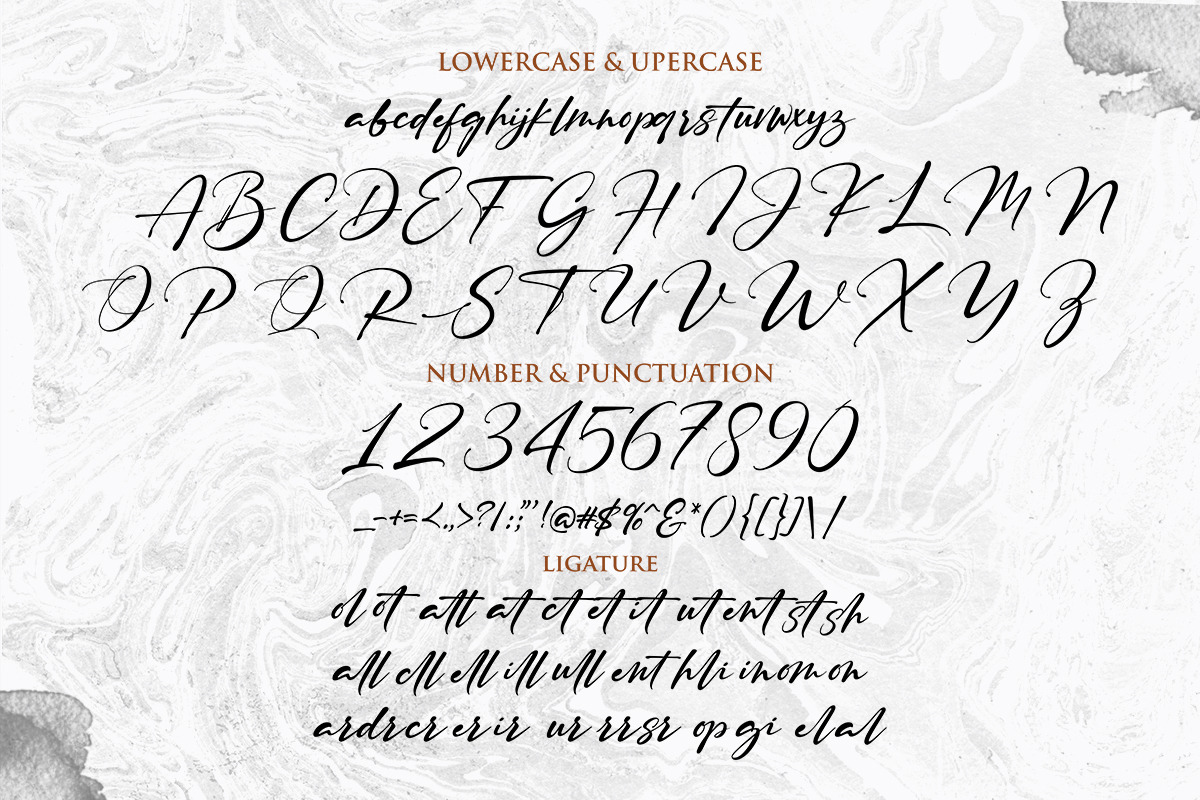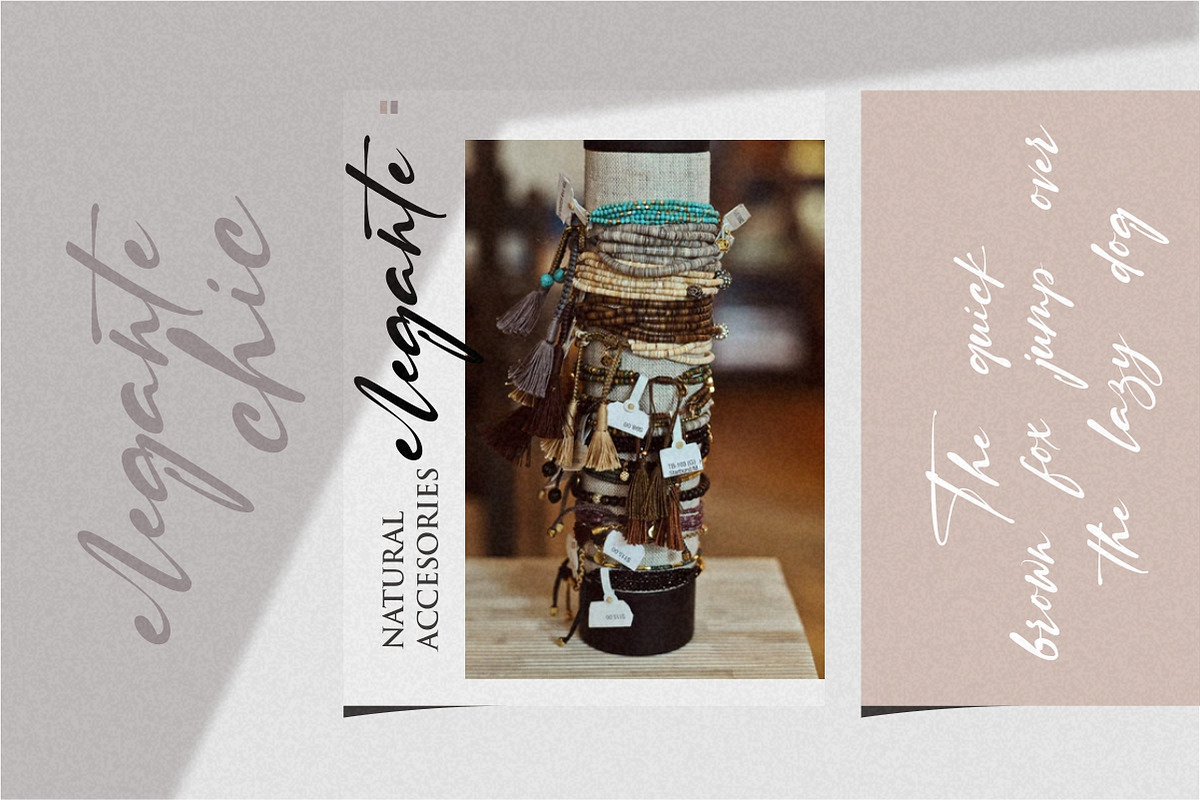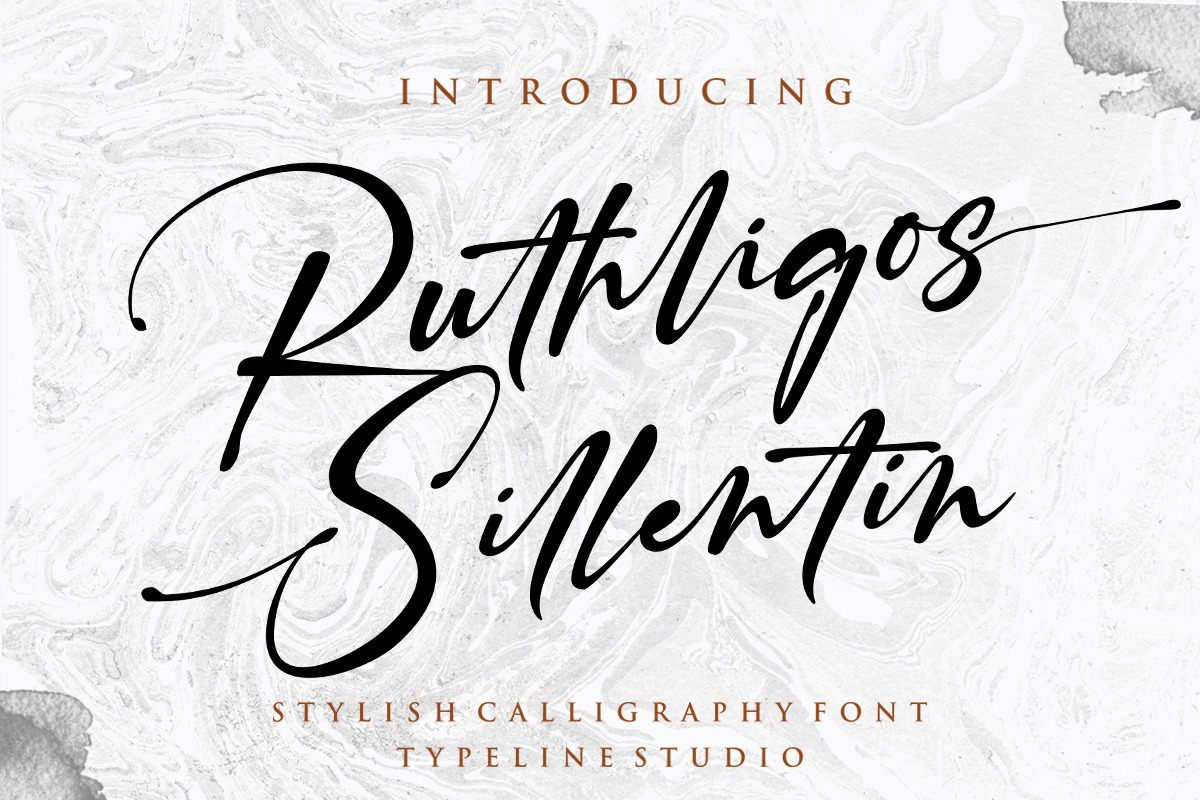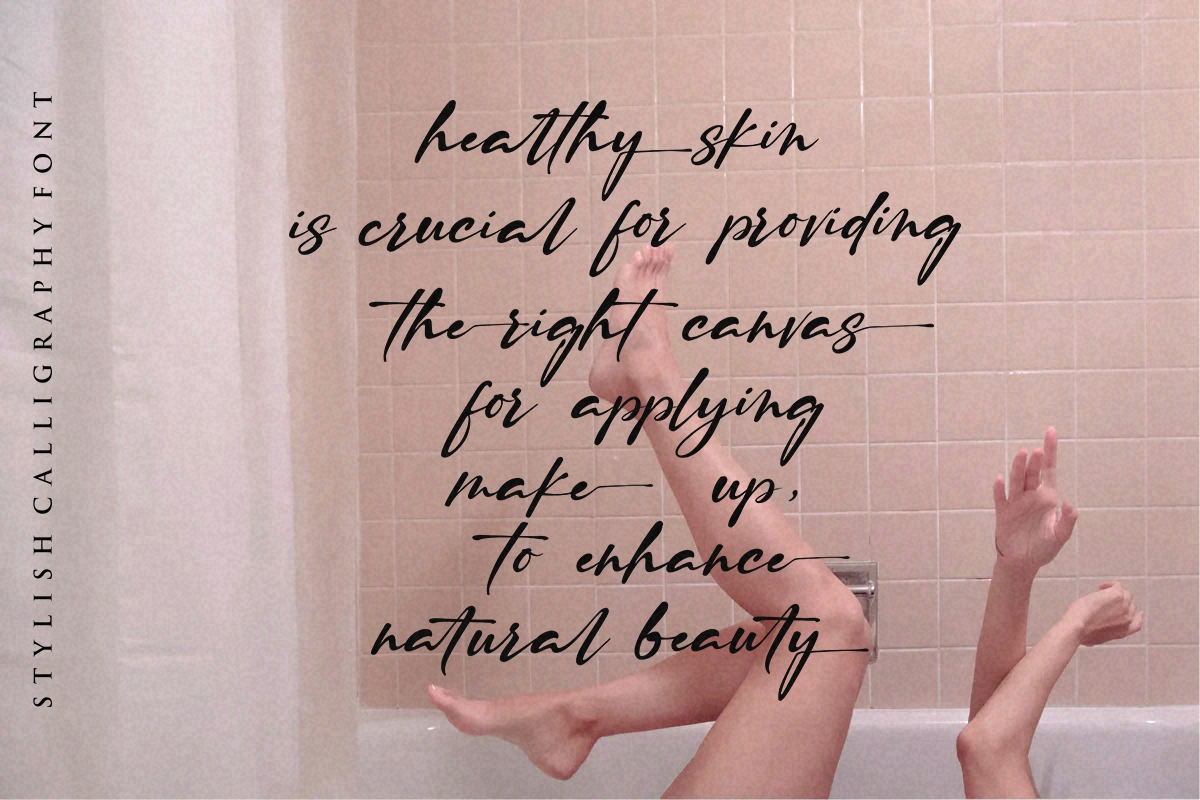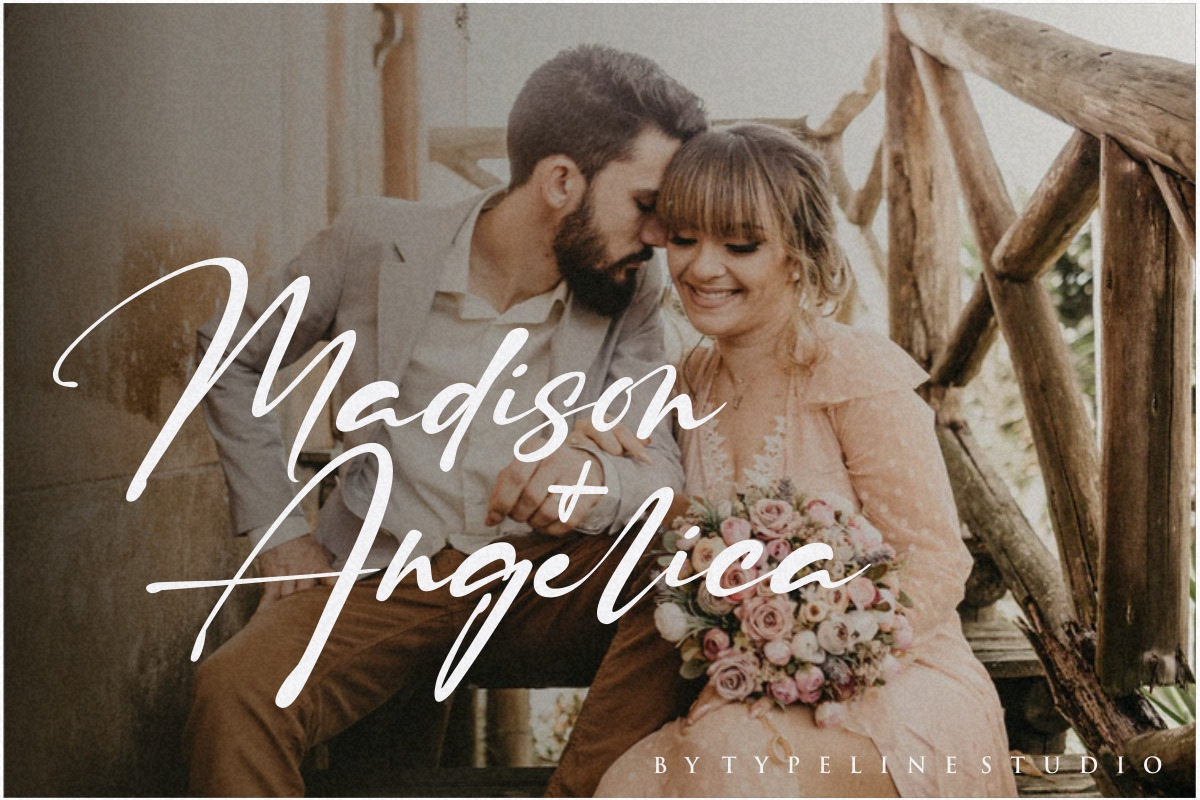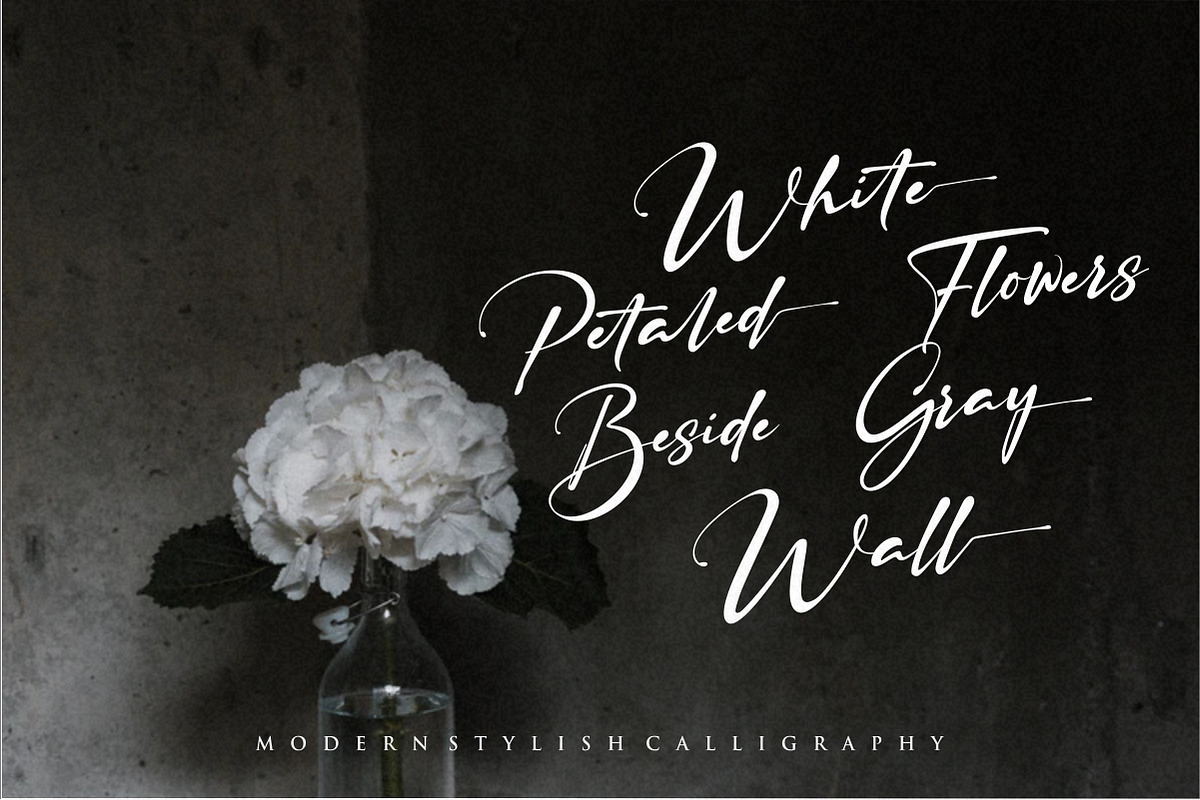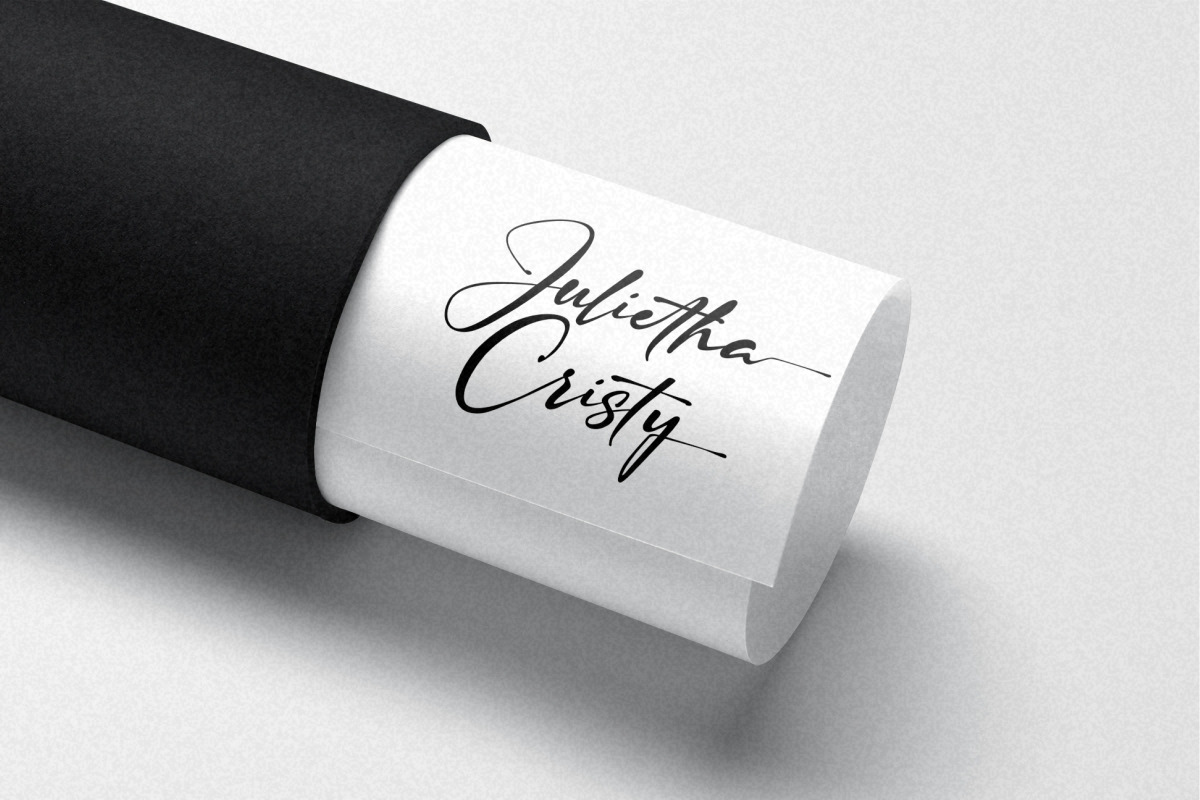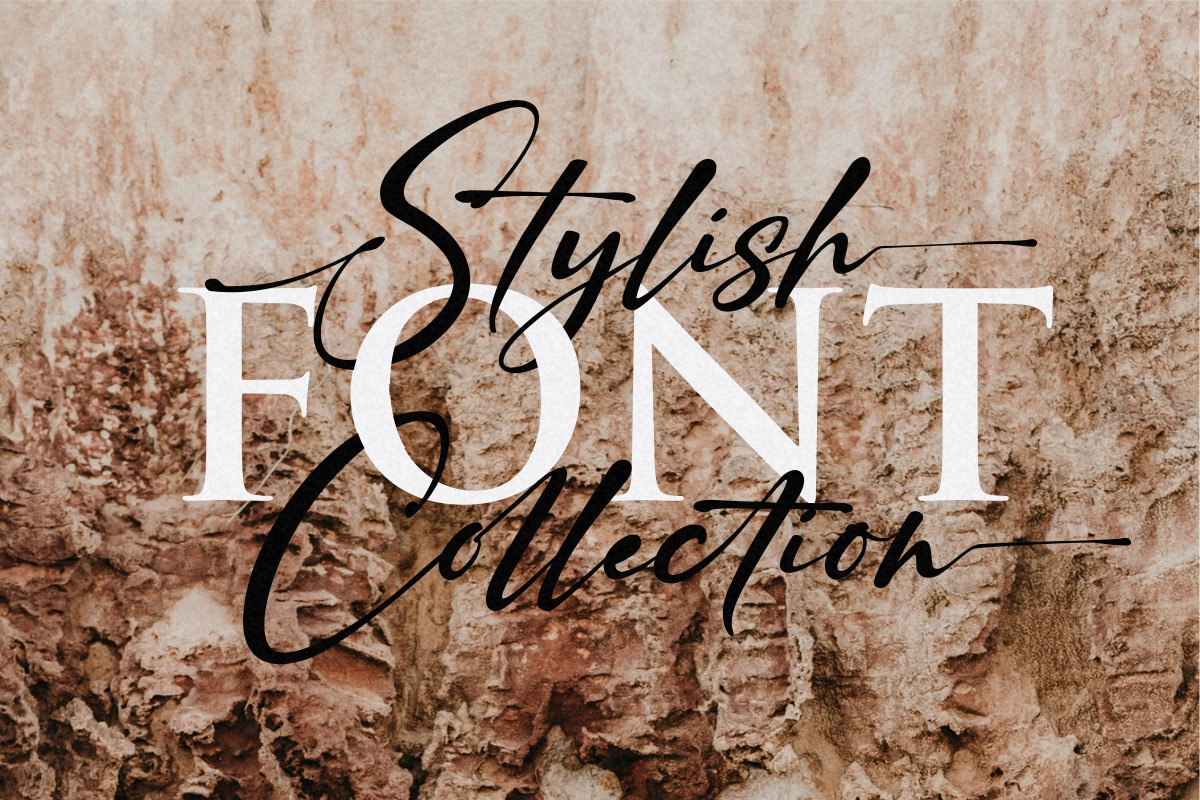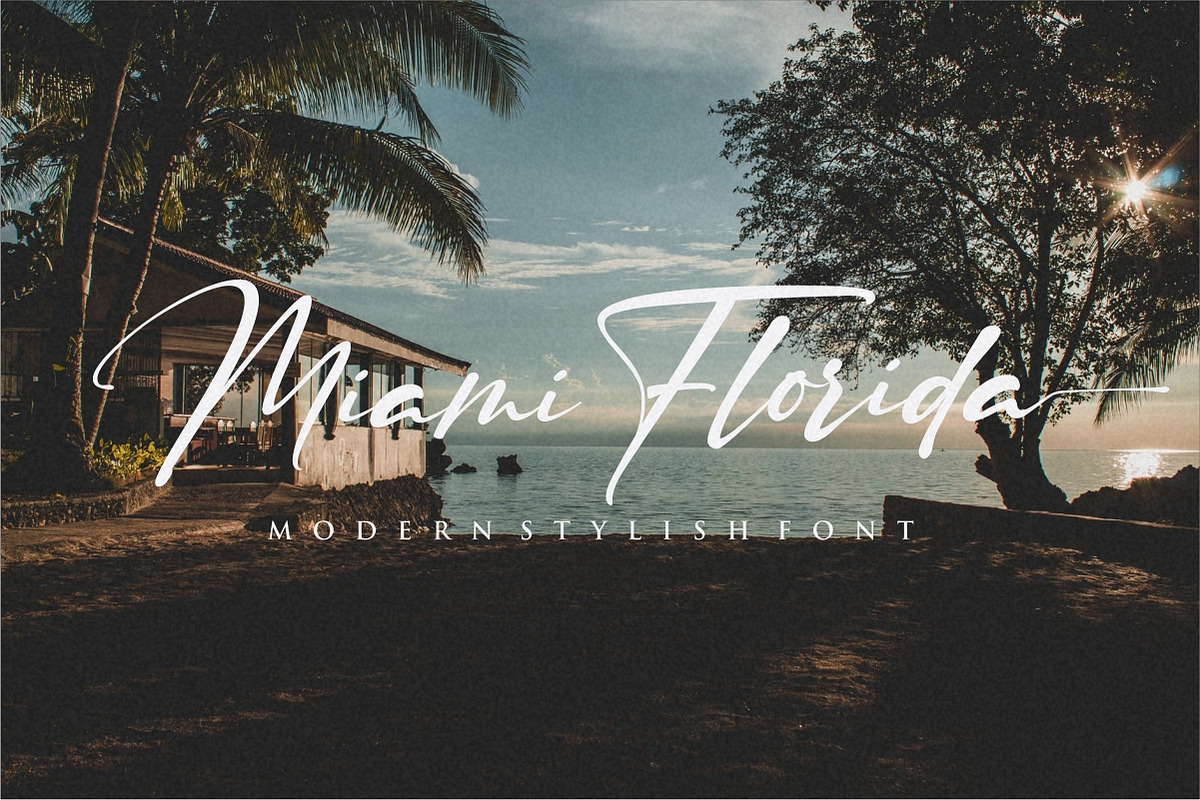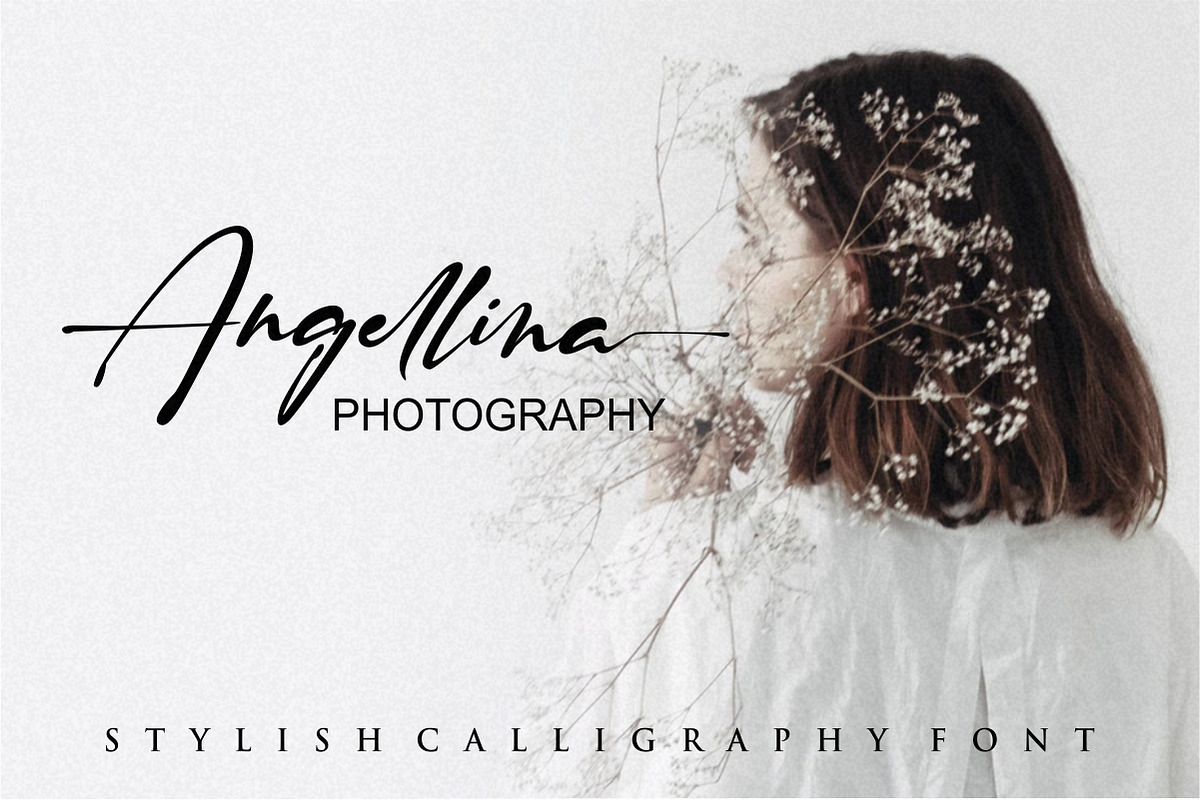
Ruthligos Font
Ruthligos Sillentin is a stylish modern Signature font with chic pressure. i hope this font perfect for creating signature logos and watermarks for photography studio or personal photography logo,best for initial or branding logo signature .
I made it with a sense of elegant,professional, and unique!!
Ruthligos Sillentin includes full set of beautifull hand lettered uppercase and lowercase letters, numerals, a large range of punctuation and 25 ligatures. All lowercase letters include beginning and ending swashes, giving realistic hand-lettered style. What you get, darling?